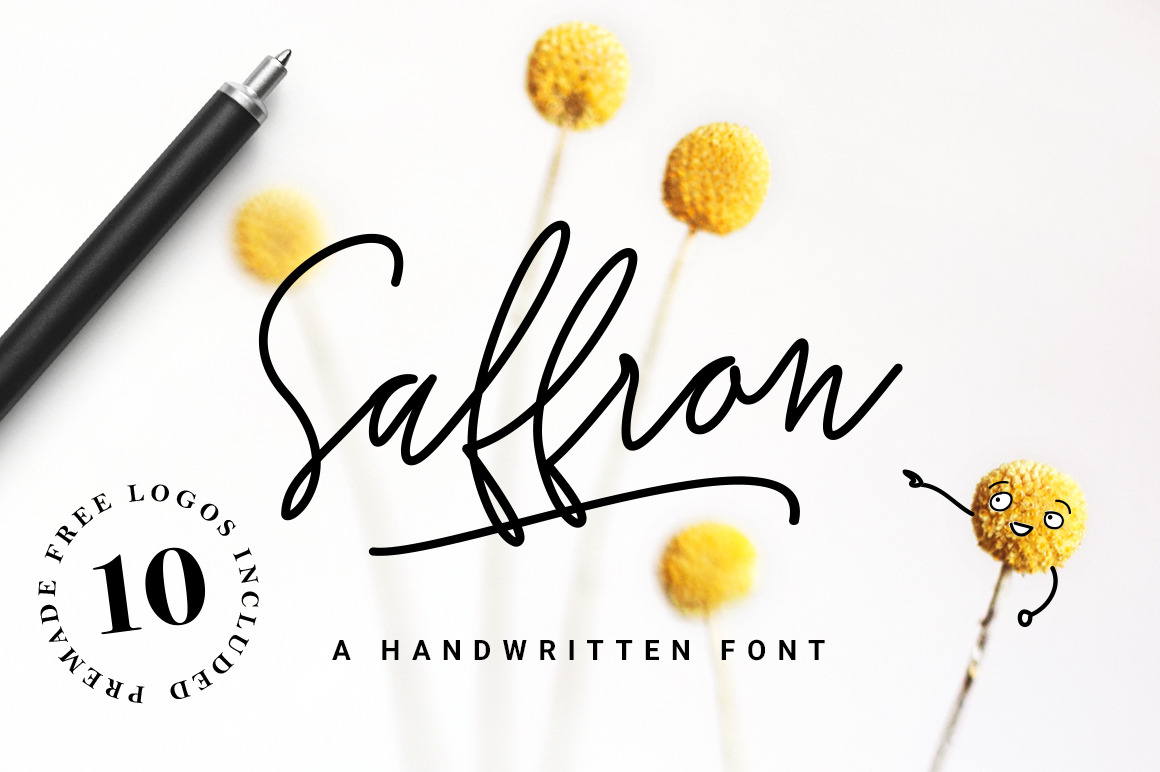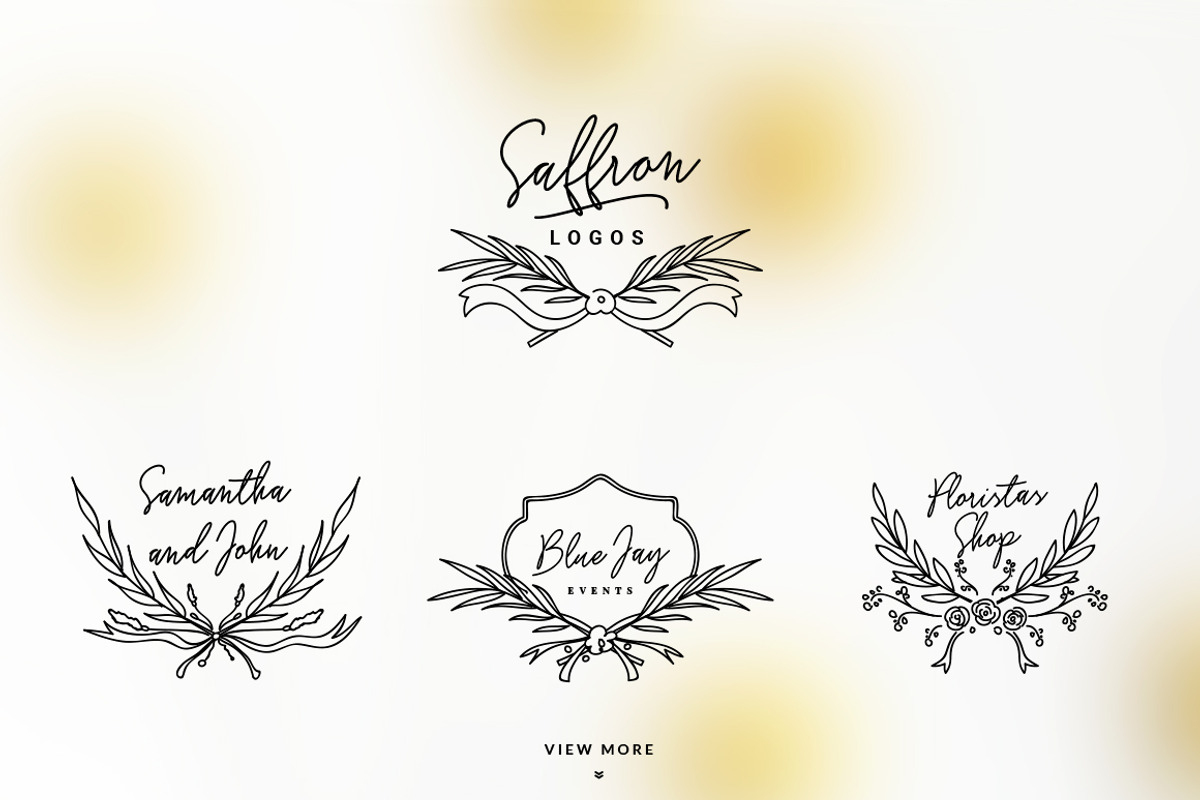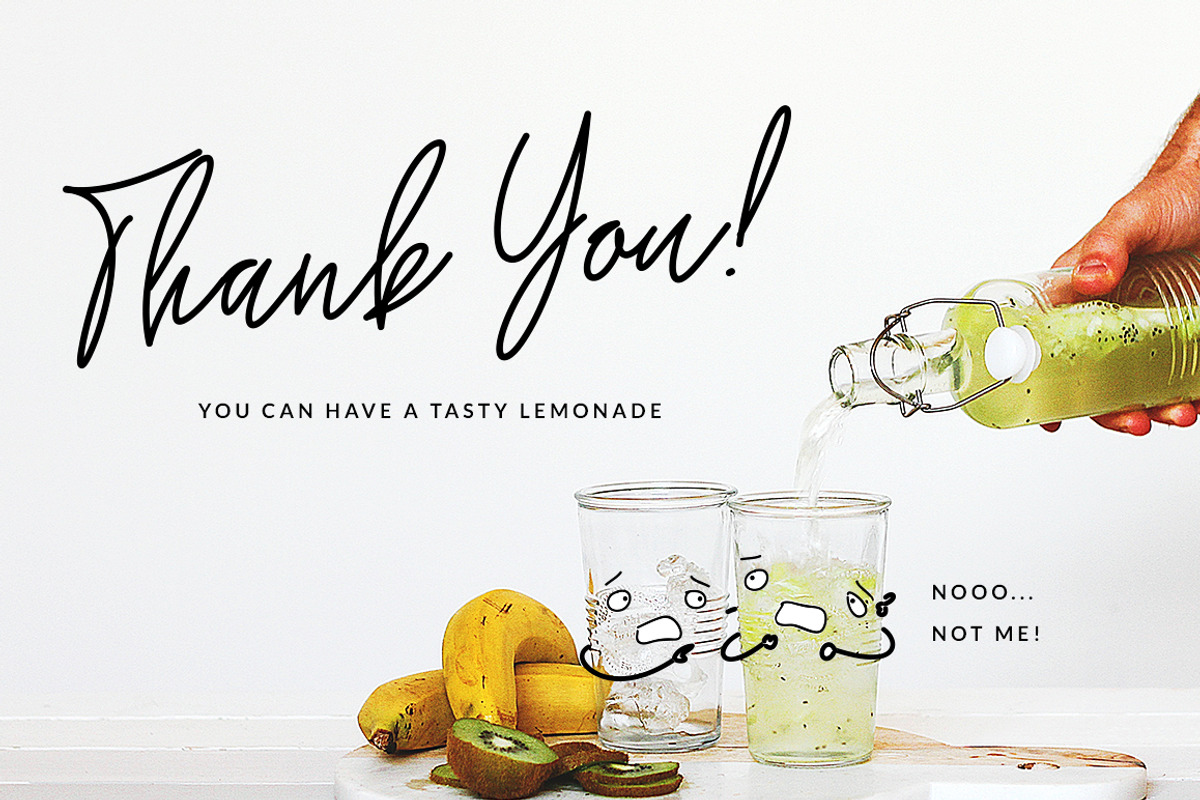
Saffron Handwritten Font
Saffron is a trendy and unique handwritten font. Its characteristic flow and signature style makes it perfect to use for logos, signatures, quotes, badges, labels, packaging design, blog headlines or simply use it in your next design project.
Saffron comes with upper and lowercase Basic Characters, Numbers, Marks and Punctuation. Diacritics are also available for Western and Central European Languages. As a feature you have also the standard Ligature, Alternates (simple, initial and end) and Swashes.